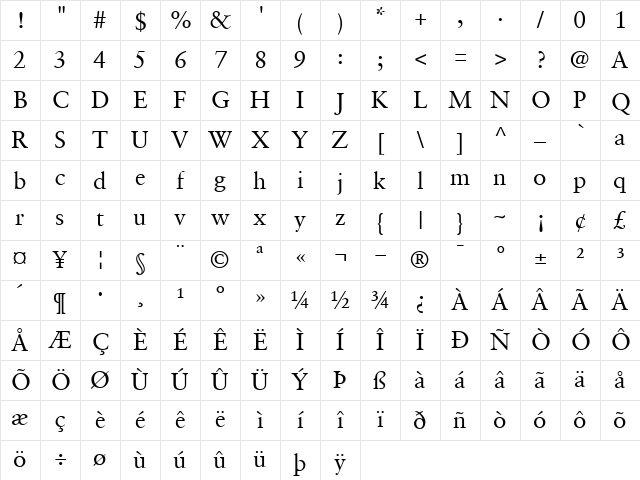
Complete Sabon Roman glyph index. Displaying only characters natively supported by Sabon Roman font.
Sabon is a composed and adaptable typeface that performs quietly and consistently across a wide range of design contexts.